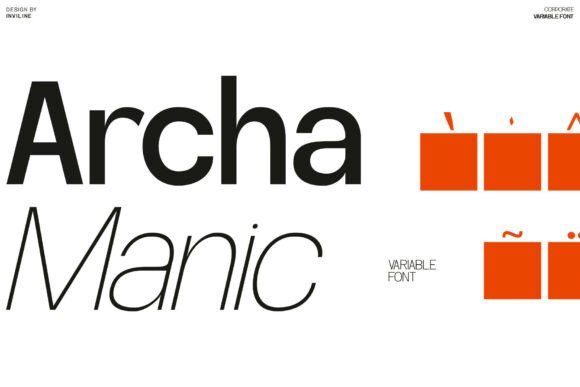
Introducing Archa Manic Font: The Ultimate Variable Sans Font for Modern Design
In the world of typography, fonts play a crucial role in conveying messages, expressing emotions, and creating brand identities. With the ever-evolving design landscape, the demand for versatile and high-quality fonts has increased significantly. Archa Manic, a variable sans font, has emerged as a game-changer in the design industry, offering a modern and corporate approach to typography. In this article, we’ll dive into the features, benefits, and applications of Archa Manic, exploring why it’s an ideal choice for designers and brands seeking professional and elegant typography.
What is Archa Manic Font?
Archa Manic is a variable sans font designed with a modern and corporate approach in mind. It comes in 9 weights, ranging from Thin to Black, providing maximum flexibility for various design needs. This extensive range of weights allows designers to use Archa Manic for a wide range of applications, from subtle and elegant text to bold and attention-grabbing headlines.
Design Philosophy and Features
The design of Archa Manic is rooted in precise proportions and a balanced visual rhythm. Each character is crafted with meticulous attention to detail, resulting in a bold yet neutral impression. This balance between aesthetics and functionality makes Archa Manic an ideal choice for clear and professional brand communication. The font’s curves are designed with purpose, ensuring that every element contributes to the overall visual harmony.
Key Benefits of Archa Manic
- Versatility: With 9 weights, Archa Manic offers unparalleled flexibility, making it suitable for a wide range of design applications.
- Legibility: The font’s precise proportions and balanced visual rhythm ensure clear and professional communication.
- Elegance: Archa Manic’s modern and corporate approach makes it perfect for designs that require clean and elegant typography.
- Power: The font’s bold weights can be used for attention-grabbing headlines and titles.
Applications of Archa Manic
Archa Manic’s versatility and range of weights make it an excellent choice for various design applications, including:
- Corporate Branding: Archa Manic’s modern and corporate approach makes it perfect for creating a professional brand image.
- UI/UX Design: The font’s legibility and elegance ensure a seamless user experience.
- Editorial Layouts: Archa Manic’s range of weights makes it suitable for body text, headlines, and titles.
- Business Presentations: The font’s professionalism and elegance make it ideal for business presentations and reports.
- Magazine Headlines: Archa Manic’s bold weights can be used to create attention-grabbing headlines.
- Modern Signage: The font’s clean and elegant design makes it perfect for modern signage.
- Digital Campaigns: Archa Manic’s versatility and legibility make it an excellent choice for digital campaigns.
Why Choose Archa Manic?
In a crowded design landscape, Archa Manic stands out as a high-quality variable sans font that bridges aesthetics and function. Its unique blend of modernity, elegance, and professionalism makes it an attractive choice for designers and brands seeking to elevate their typography. With Archa Manic, you can:
- Create a professional brand image
- Enhance user experience
- Add elegance and sophistication to your designs
- Improve legibility and communication
Archa Manic is a game-changing variable sans font that offers a modern and corporate approach to typography. Its versatility, legibility, elegance, and professionalism make it an ideal choice for various design applications. Whether you’re a designer or a brand seeking to elevate your typography, Archa Manic is an excellent option to consider. With its precise proportions, balanced visual rhythm, and extensive range of weights, Archa Manic is poised to become a go-to font for designers and brands seeking high-quality typography.